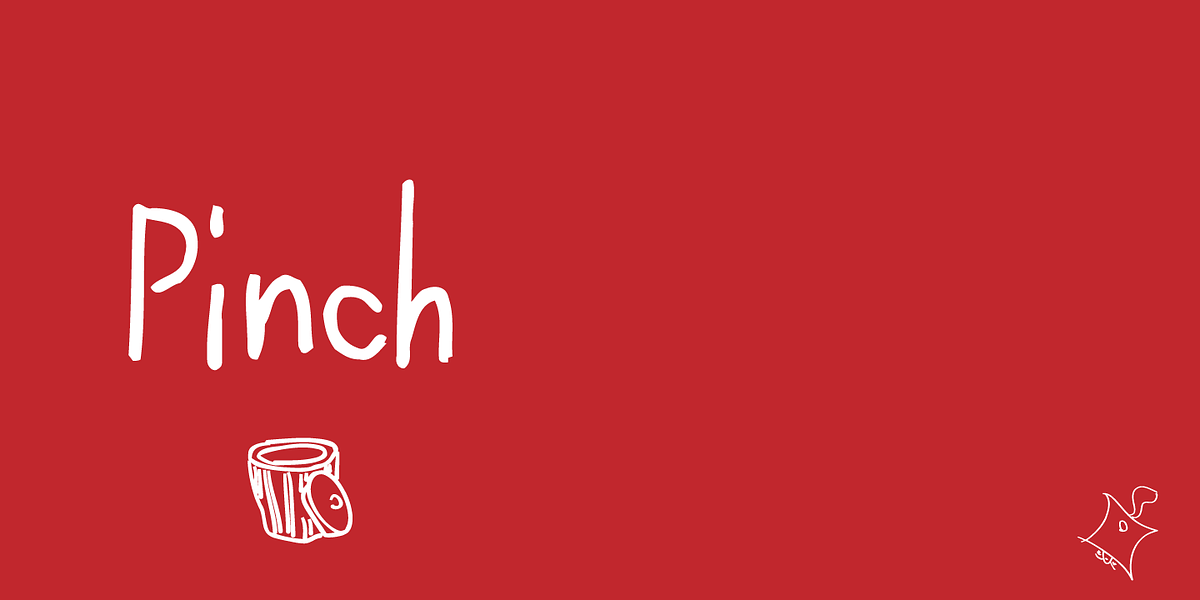
Pinch
Pinch is a hand-drawn script font created to emulate the look of casual handwriting. Its rough and bouncy nature gives it a playful personality, making it suitable for children's books, handwritten notes, and other creative projects.